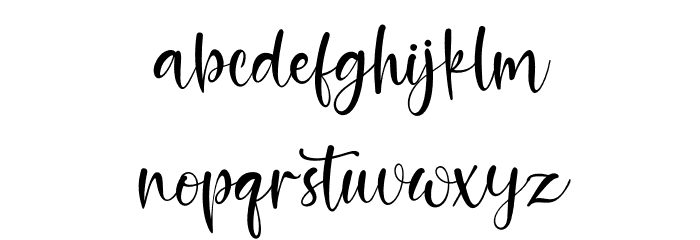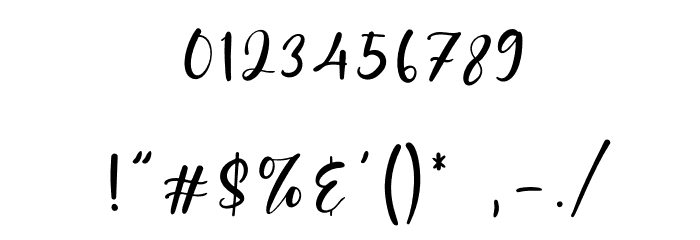
Aurella Font
This font features a flowing, cursive style with elegant loops and swashes, giving it a handwritten, personal touch. The uppercase letters are bold and expressive, while the lowercase letters maintain a consistent flow with a slightly more restrained appearance. Numbers and special characters are designed with the same fluidity, ensuring a cohesive look across all text. The overall design is both artistic and readable, making it suitable for various creative applications.
A flowing, cursive font with elegant loops and swashes.
- Proposed Projects: Ideal for wedding invitations, greeting cards, branding, and social media graphics.
- Use Case: Logos, Invitations, Decorative text